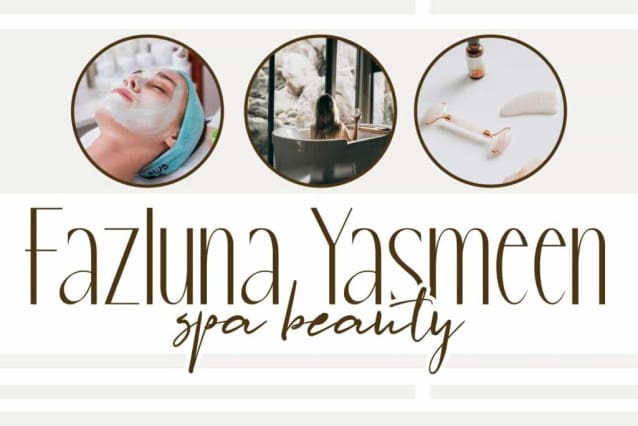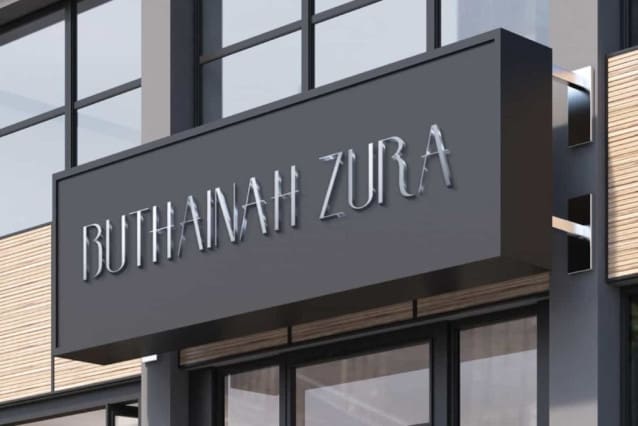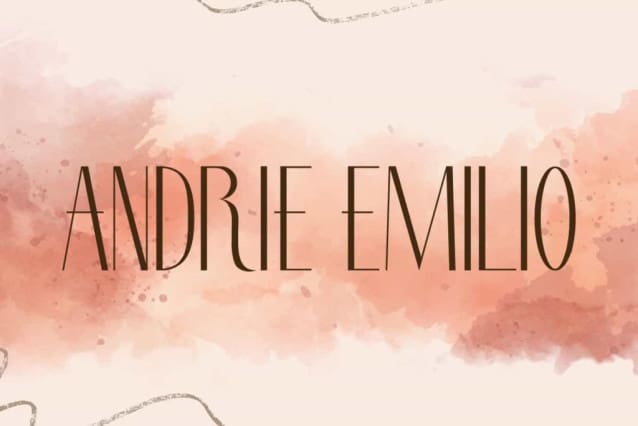
Andrie Emilio Font
Andrie Emilio Font is a modern sans serif font that feels beautiful, classy, ​​and elegant. It features geometric shapes, creating a sleek visual aesthetic. This font will be perfect for any project, such as advertisement, blog, branding, gift box, invitation, label, layout design, quotes, signboard, template design purpose, website, and many more.
Andrie Emilio Font includes full set of Uppercase and Lowercase Basic Characters, Numerals, Punctuation, and Symbol. It’s a gorgeous sans serif typeface that will adds a stunning touch. It’s perfect for accessories and jewelry, cosmetic, event or wedding organizer, fashion, florist, furniture, real estate, skincare, spa salon, etc.